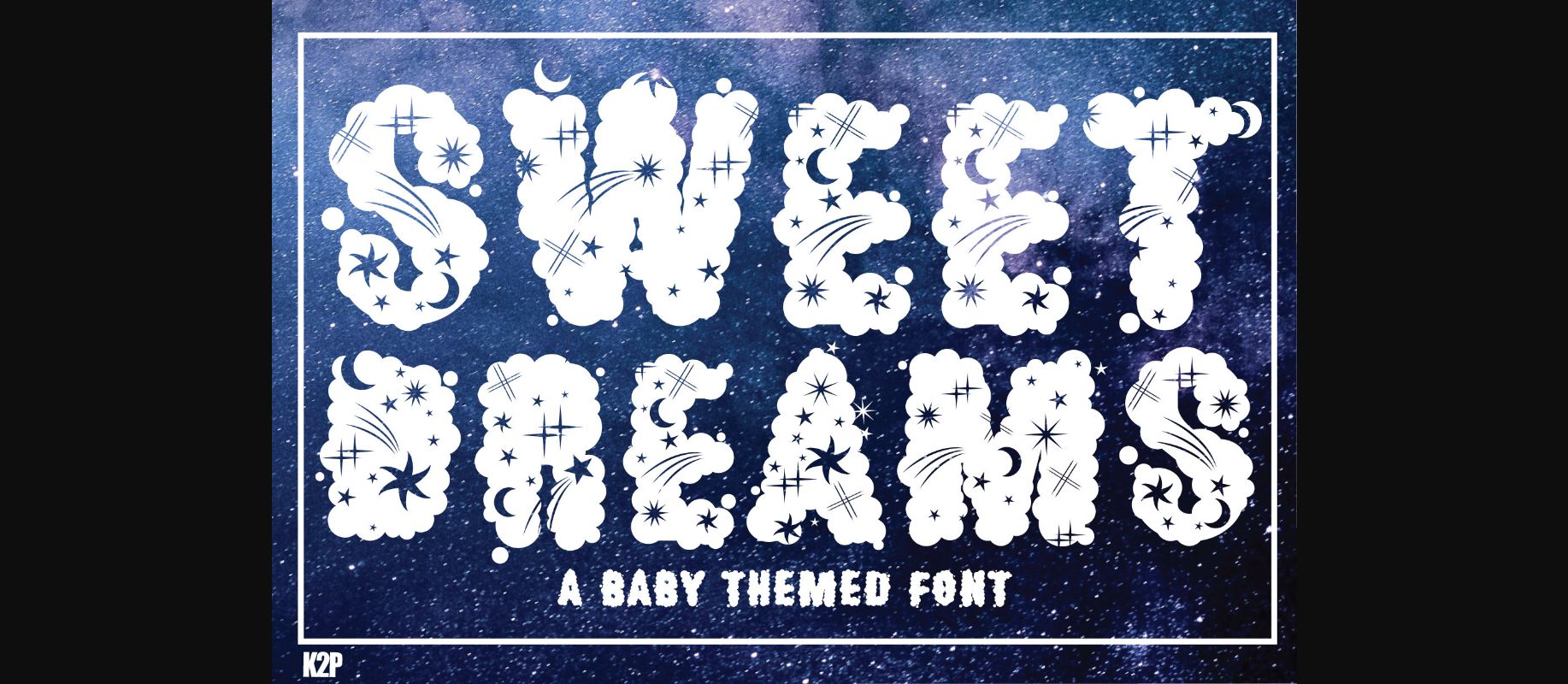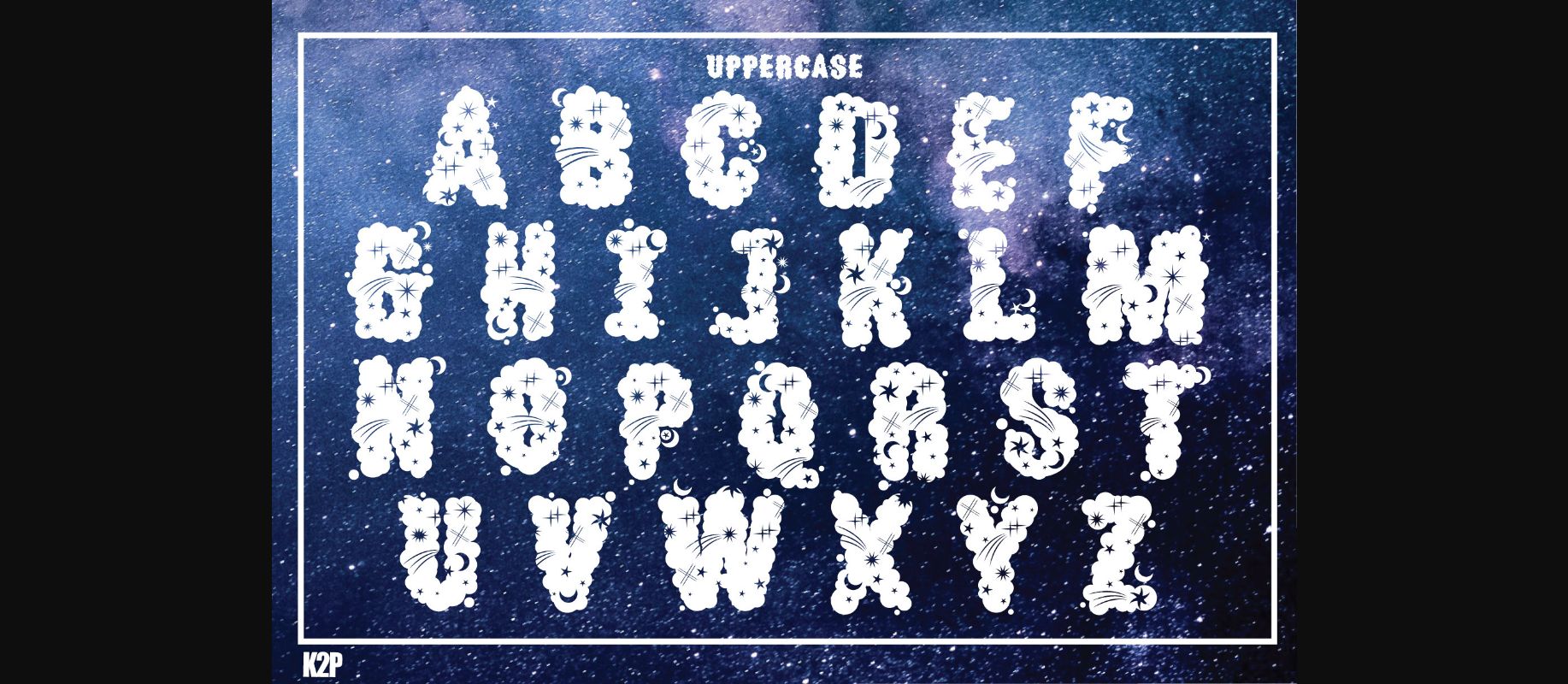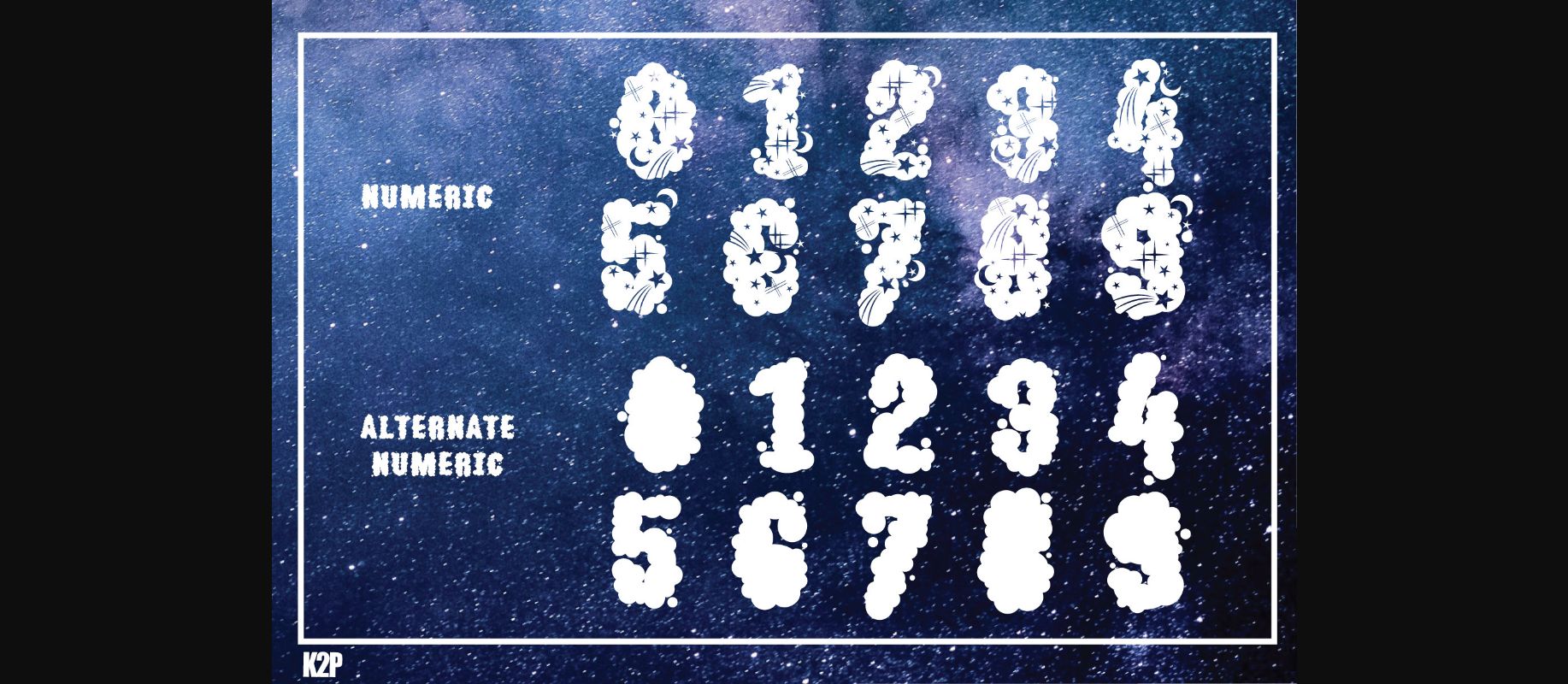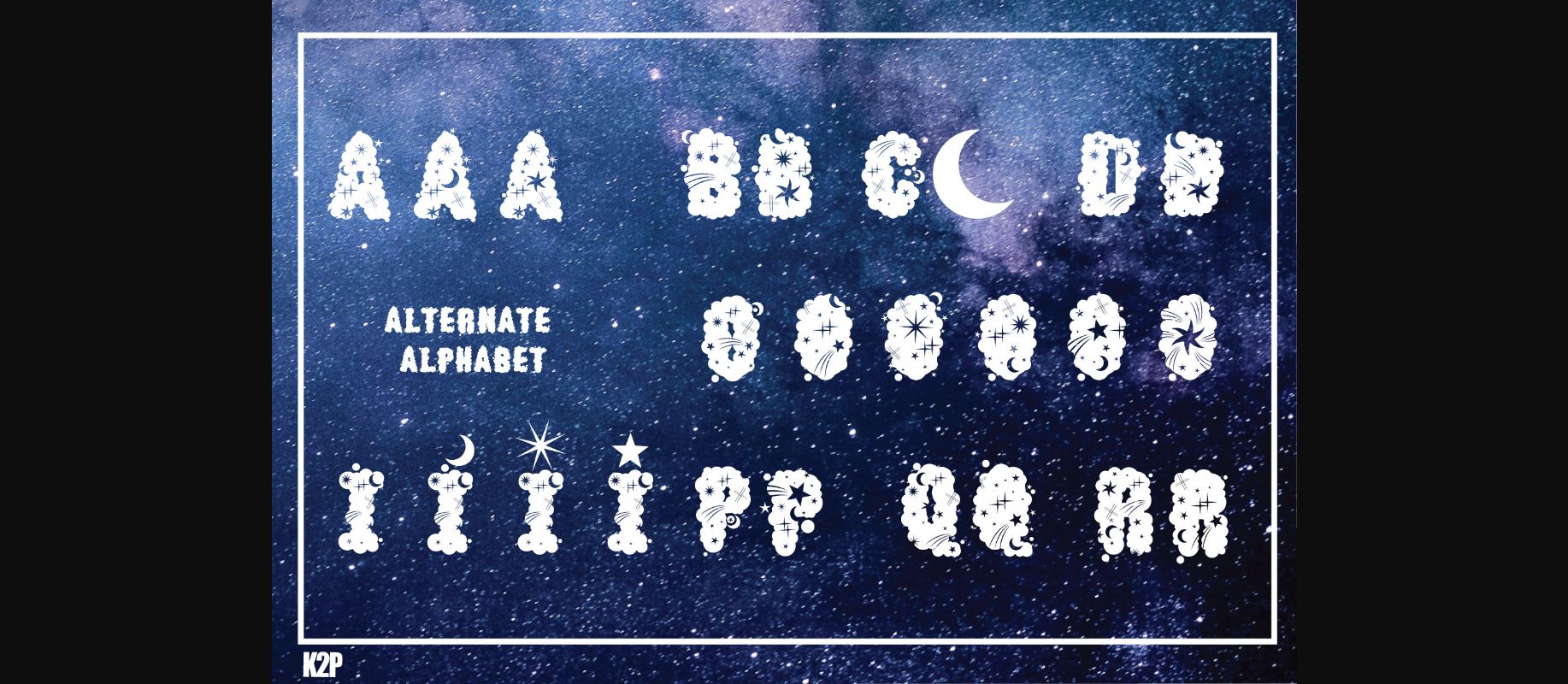
About Sweet Dreams Font
Sweet Dreams is a thick lettered and fun-looking decorative font. It is perfect for children-themed designs, especially when combined with bright colors. This font is PUA encoded which means you can access all of the glyphs and swashes with ease